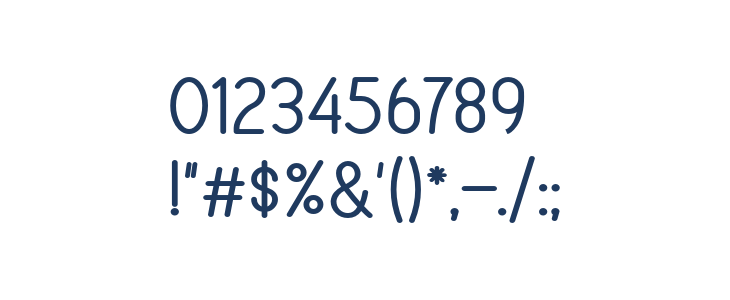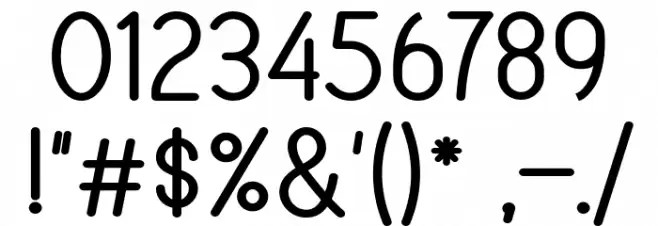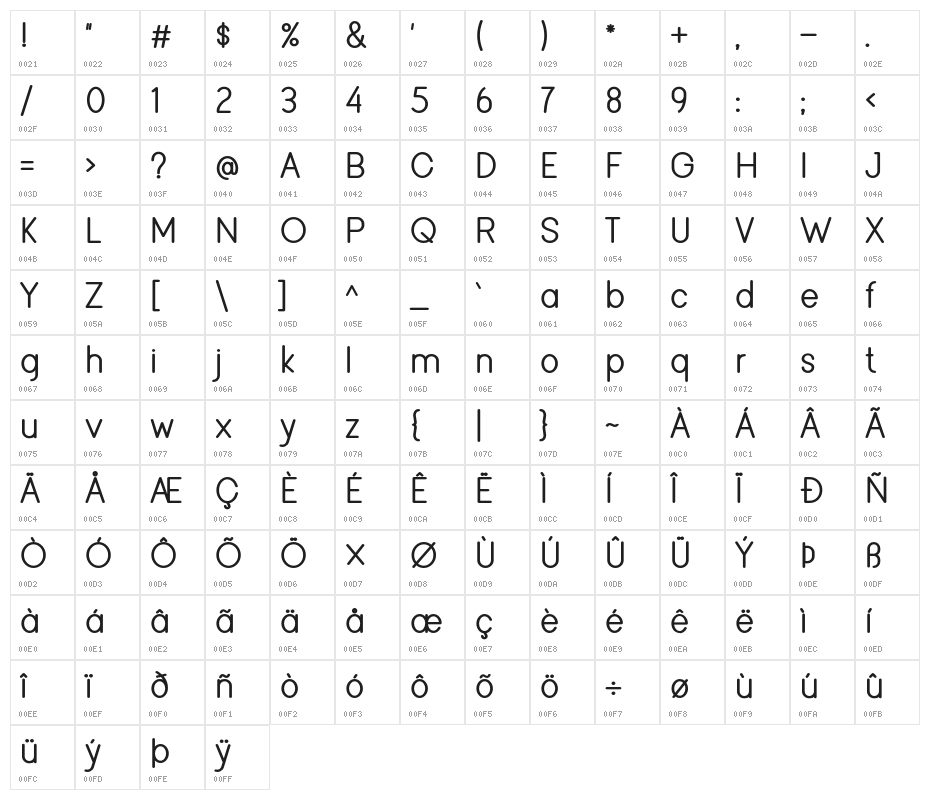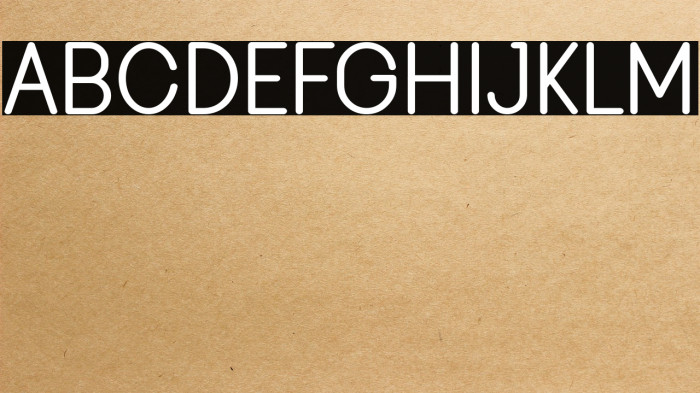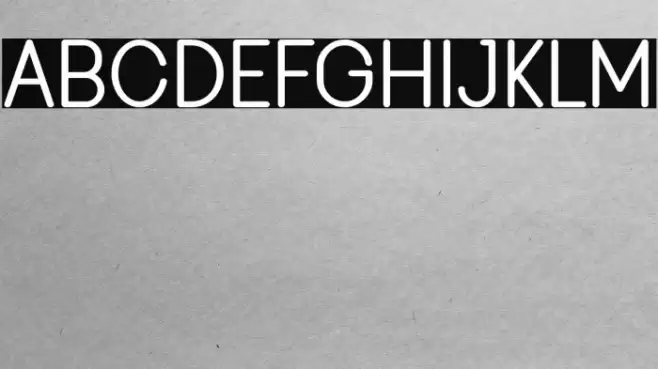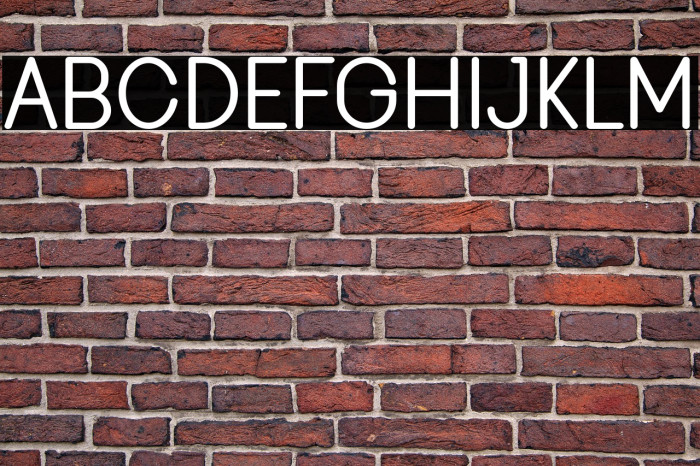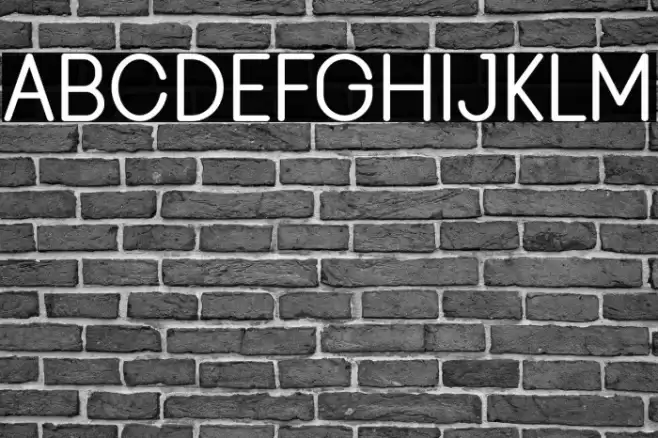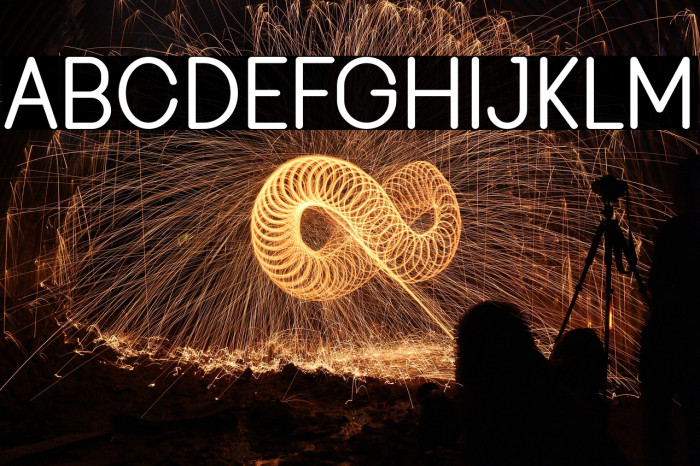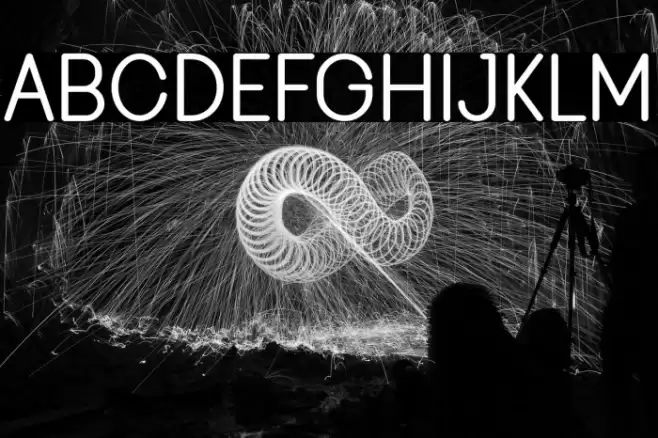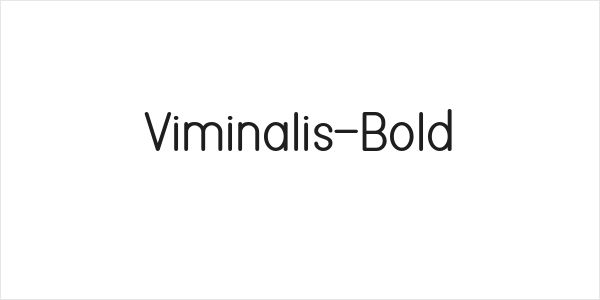
Viminalis-Bold Font
Viminalis-Bold Description
This font features a clean and modern sans-serif style with a bold weight. The characters are evenly spaced, providing a balanced and harmonious appearance. The rounded edges and uniform stroke width contribute to its contemporary and approachable look. The uppercase and lowercase letters maintain a consistent height, enhancing readability. The numerals and special characters are designed to complement the alphabet, ensuring versatility across various applications. This font is well-suited for digital and print media, offering clarity and impact.
Use CaseHeadlines, Body text, Logos
Proposed ProjectsIdeal for branding, advertising, web design, and editorial layouts where a modern and clean aesthetic is desired.